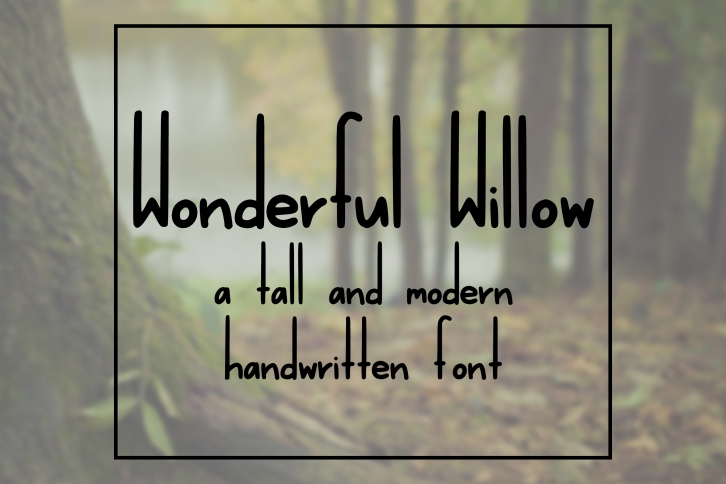
Wonderful Willow is a gorgeous font that was realeased on February 24, 2019. The font can be used in many style contexts and design environments. Perfect for invitations, magazines, websites, logos, and more! It was designed by SavoringSurprises and the file size is 12.56 MB. Thanks for checking out this font!